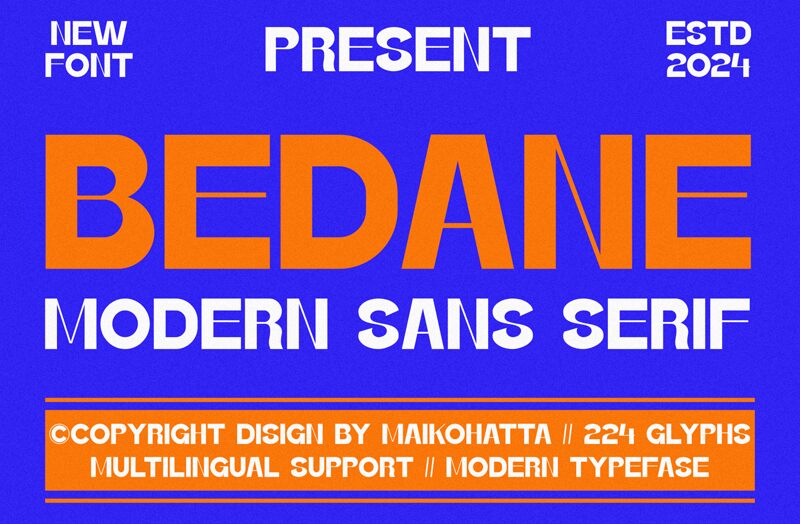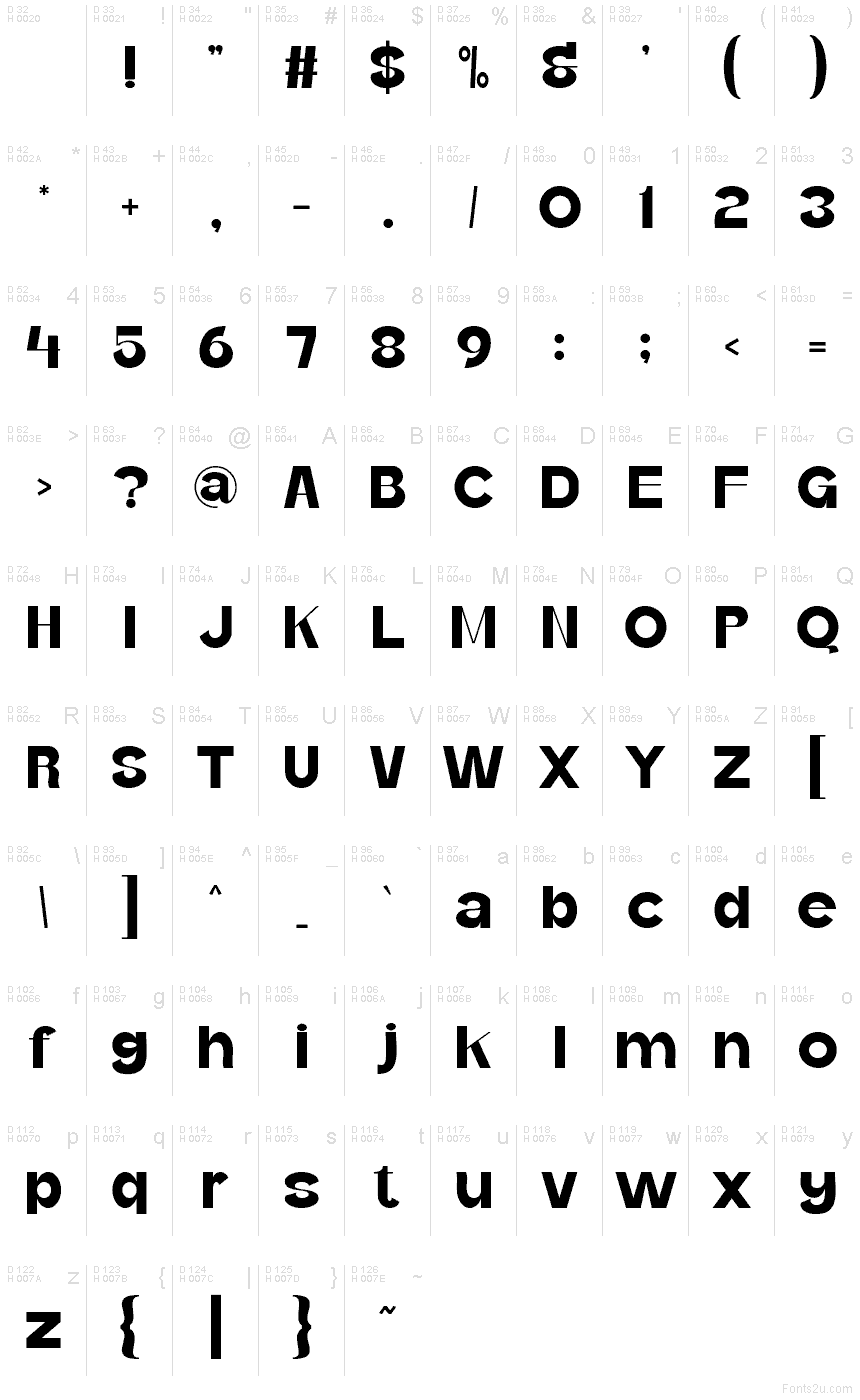
BEDANE
Bedane font by Gilang Ternadho is a free bold sans serif typeface with a punchy, industrial attitude. Its thick, blocky shapes and tight spacing create a wall of black that feels solid and unshakeable, while sharp interior cuts carve out clean, graphic negative space. The result is a headline face that feels both architectural and modern, like letters welded from steel plates.
Using Bedane, you can push impact-heavy projects—posters, album covers, sports graphics, streetwear branding, event flyers, and bold packaging—to the edge of the page. This free font thrives in all caps at large sizes, where its compressed forms stack into powerful, compact lines. For longer copy, pair Bedane with a simple, lighter sans serif to keep the focus on its chunky, attention-grabbing titles.